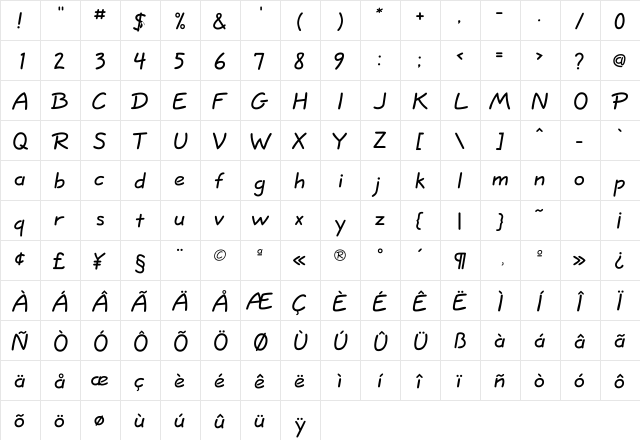
Johnson Regular
Design Context for Johnson Typeface
Johnson is a composed and adaptable typeface that performs quietly and consistently across a wide range of design contexts.